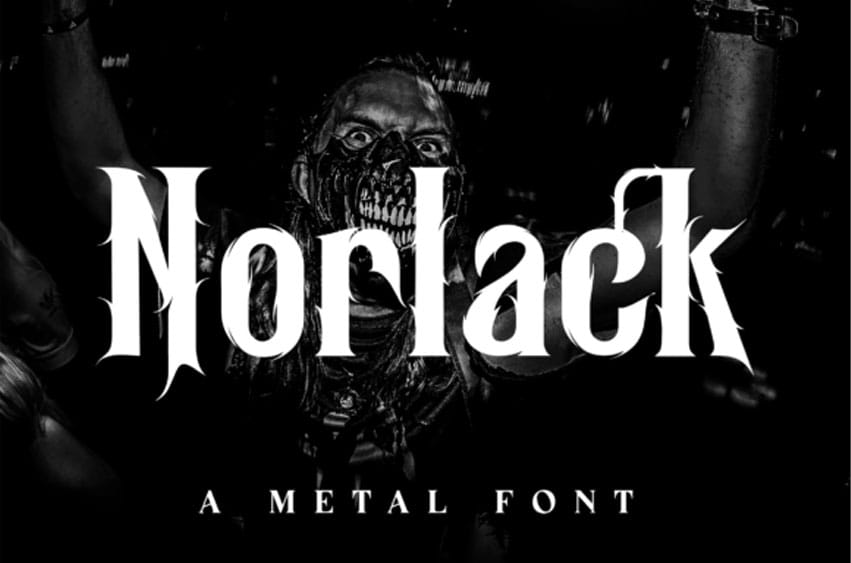
Norlack Font is a bold metal blackletter font with sharp gothic details, heavy decorative strokes, and an aggressive stage-ready character.
Its dark medieval style works great for heavy metal band logos, concert posters, album covers, tattoo designs, merchandise, horror branding, and bold display headlines.